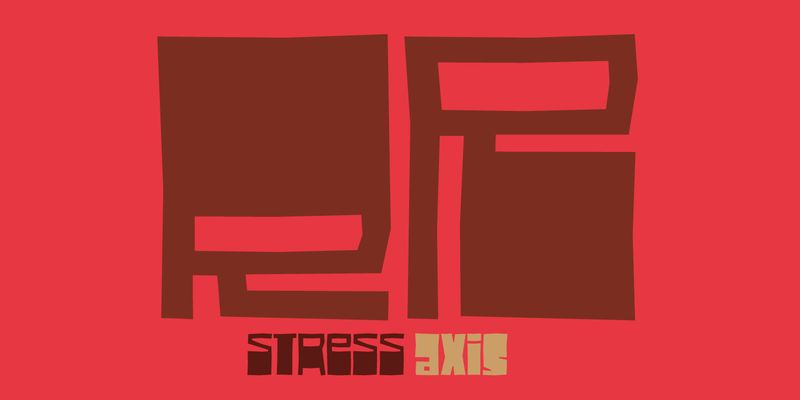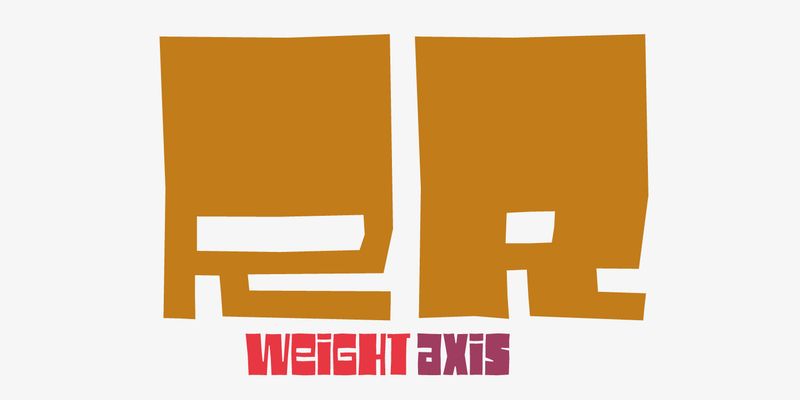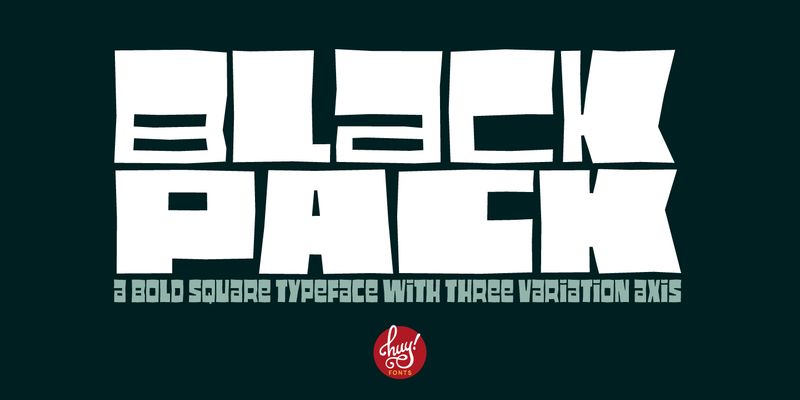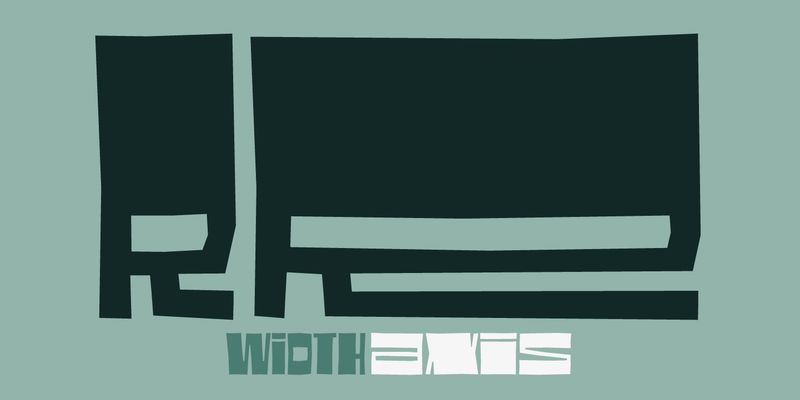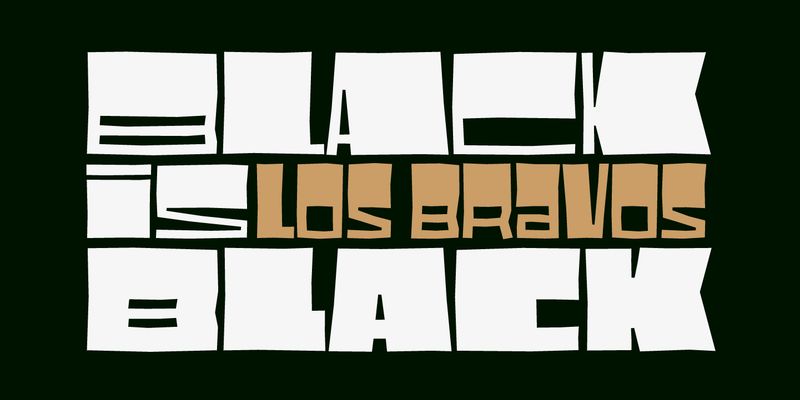
Loosely inspired by the odd bold plastic shops signs from the 60s and 70s, Black Pack is powerful and beautiful, a block display font that fits everywhere due to its wide range of weights and widths.
The Black Pack started as a very, very, simple group of letters without curves to practice transforming them with Python scripting, but quite soon I give up the programming idea (I’m terrible at coding) and started to enjoy drawing more and more widths and styles. The aim was to develop a really bold font in many widths to fit easily any copy in any layout.
Now Black Pack is a variable font with three axis, weight, width and a extra stress axis to change vertical weight.